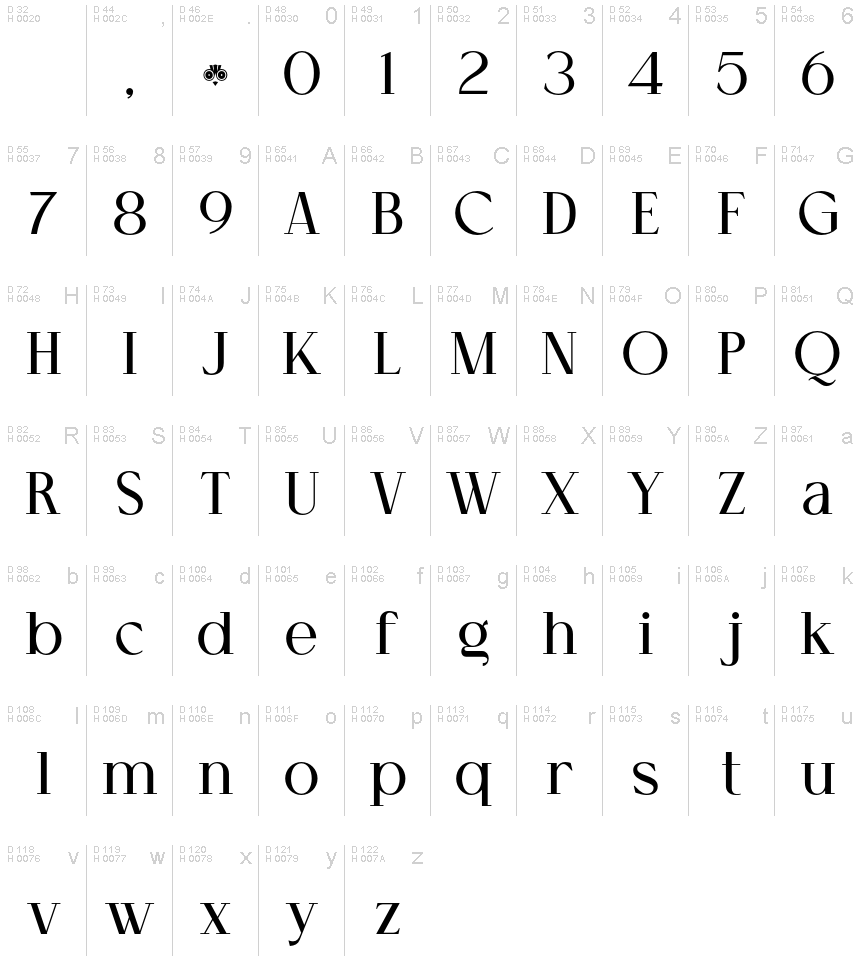
Cellofy-Medium
Cellofy Medium font from the Cellofy family by Owlking Project is a captivating serif typeface, free for personal use. Its elegant curves and striking contrast create a sophisticated and timeless aesthetic, perfect for branding and editorial design. The font’s bold strokes and delicate serifs add a touch of class, making it ideal for high-impact headlines or refined body text.
A standout choice in print and digital media, Cellofy Medium lends itself well to projects seeking a classic yet modern flair. Its versatility can transform invitations, posters, or book covers into stylish statements. For designers looking to make their work memorable, this free font offers both uniqueness and quality.